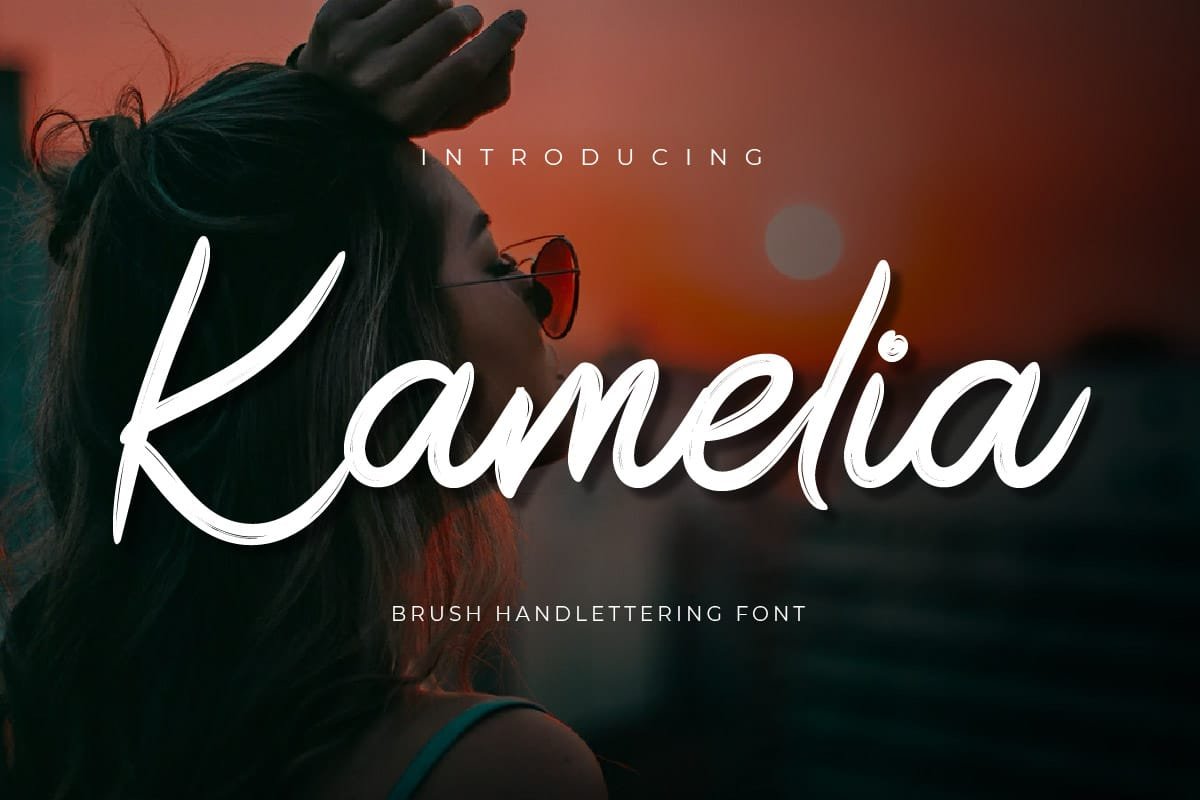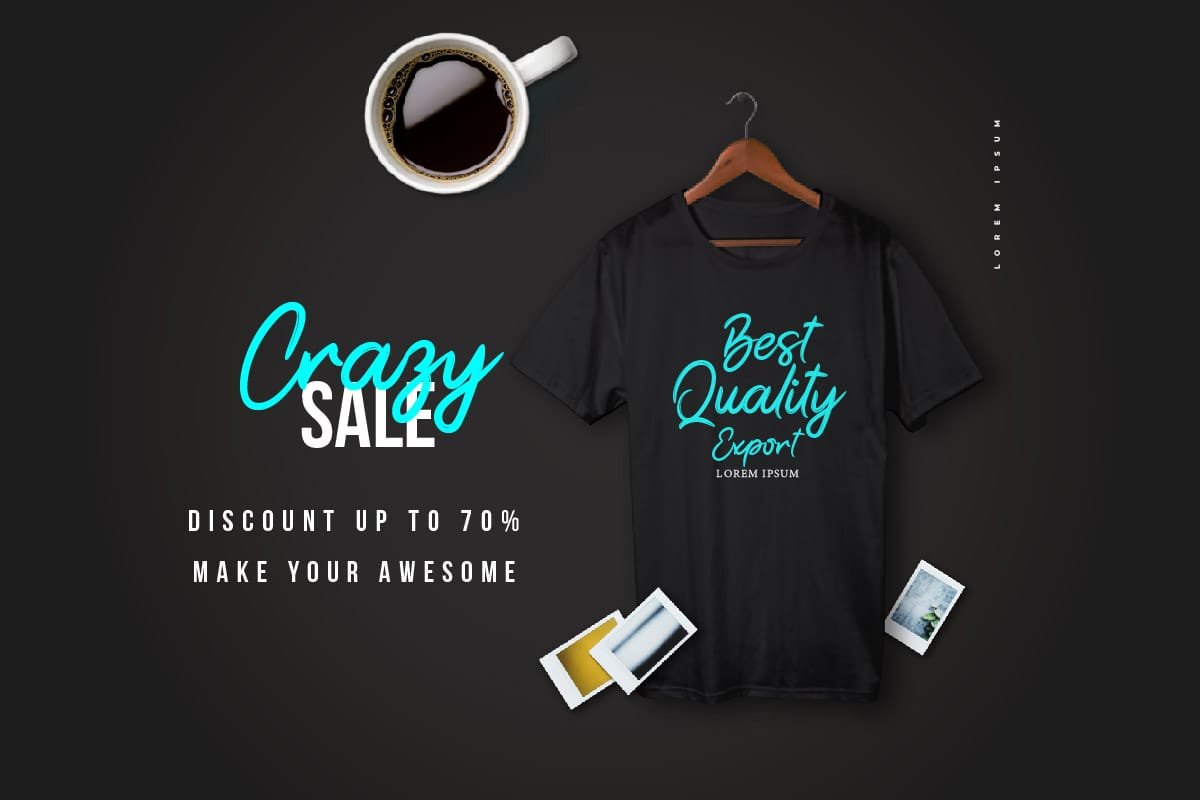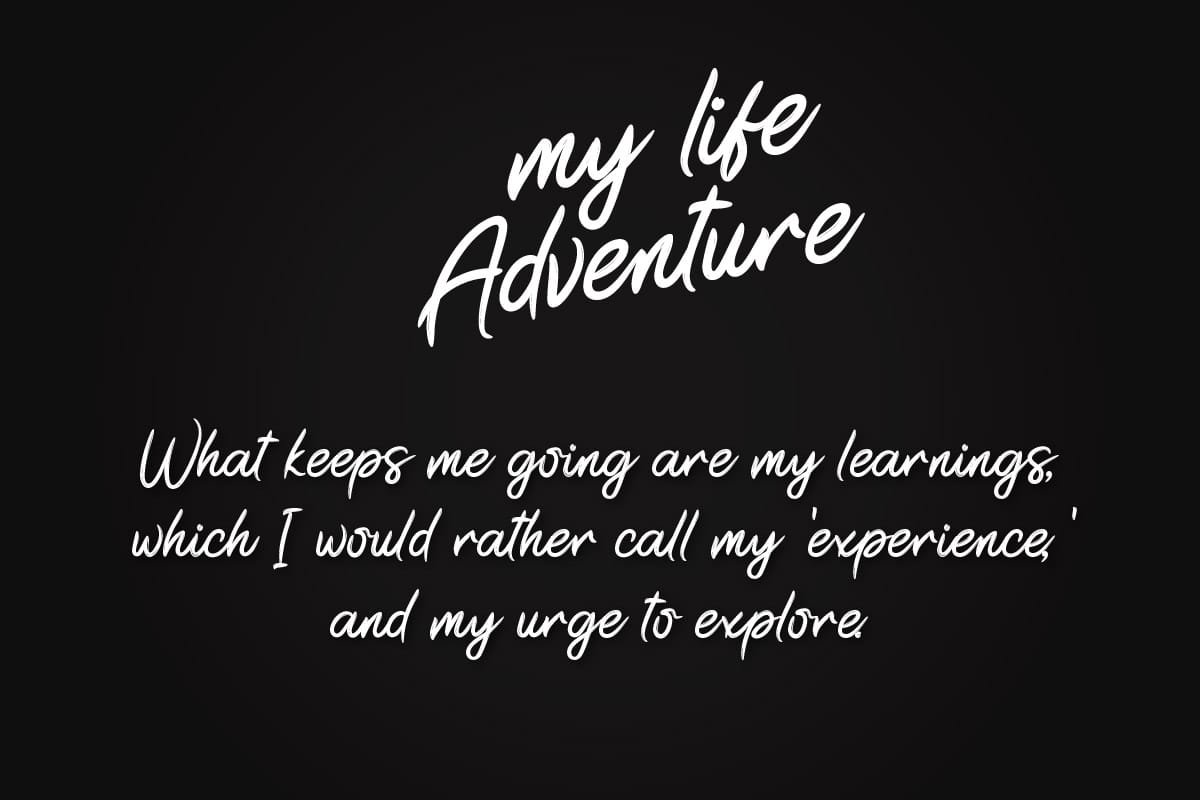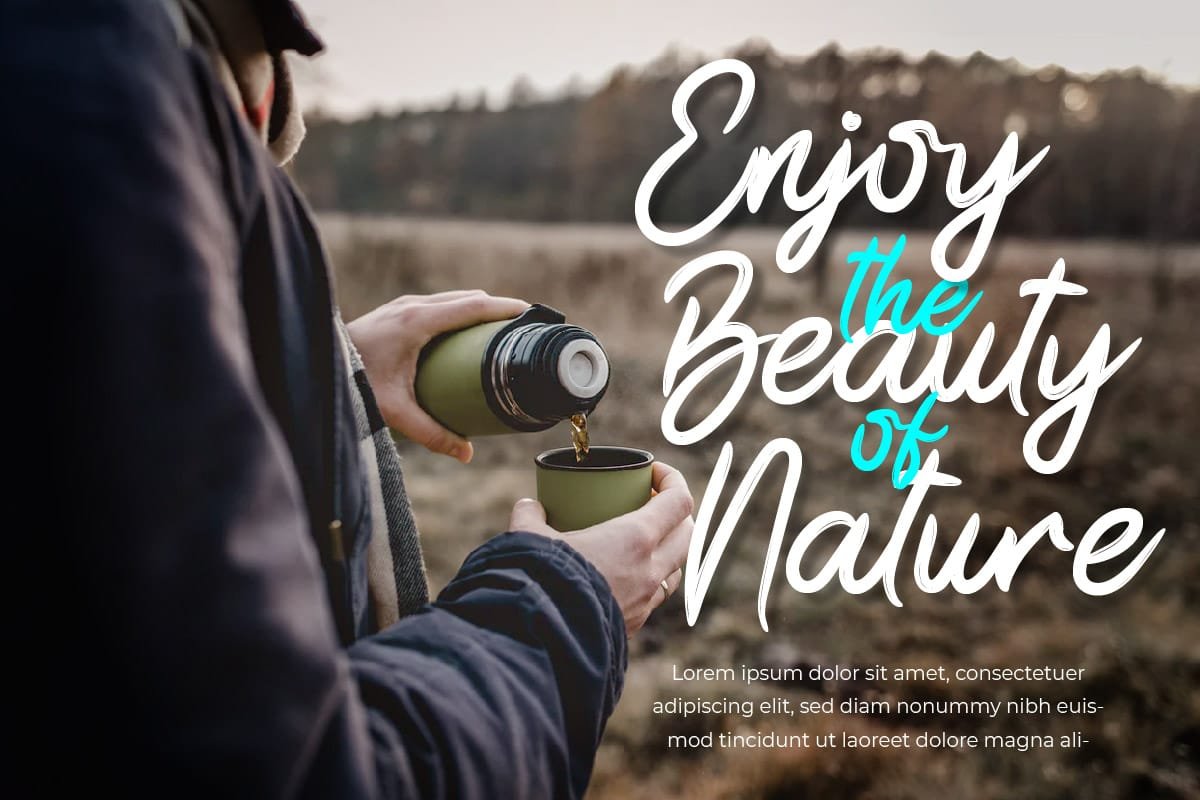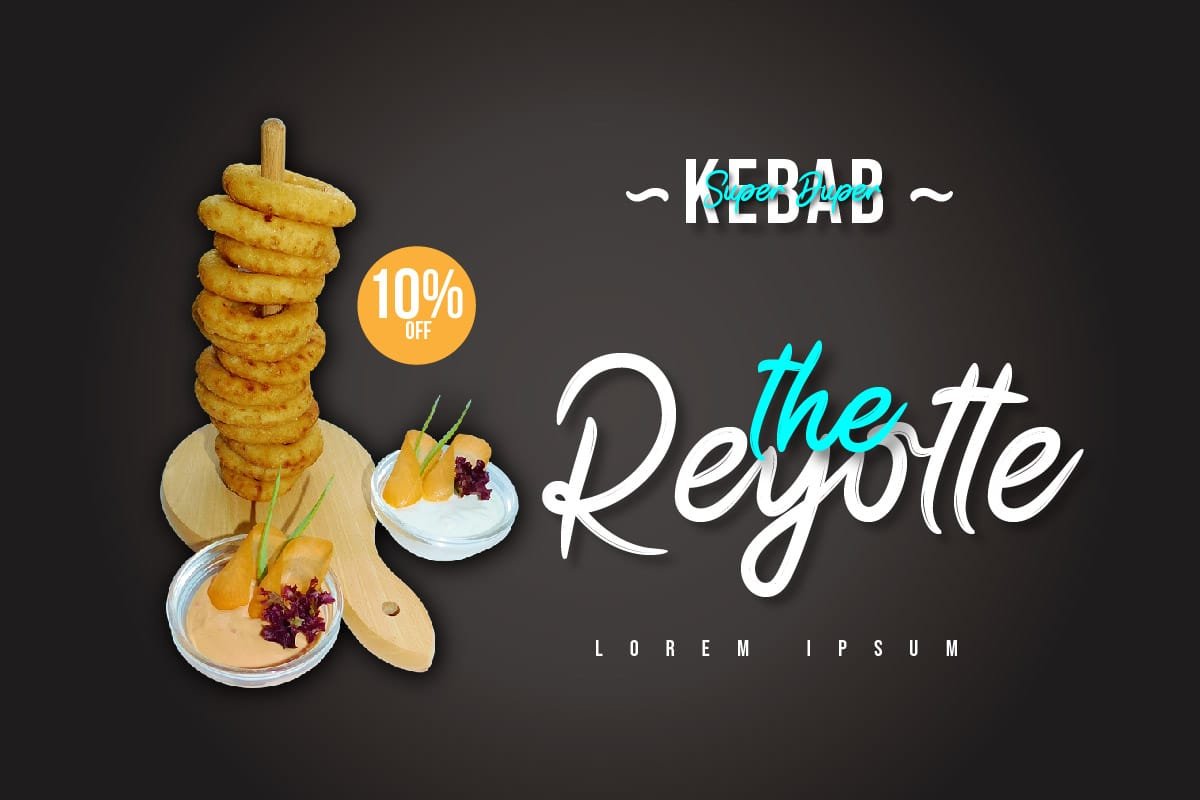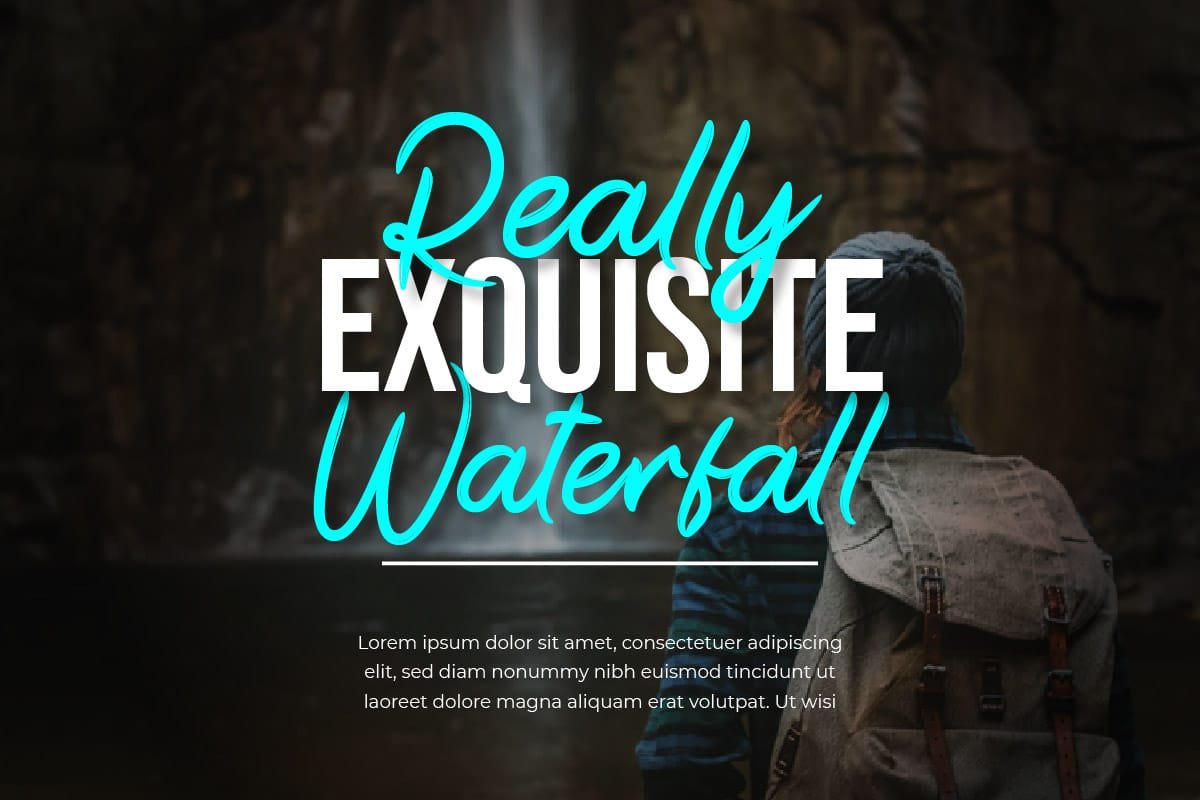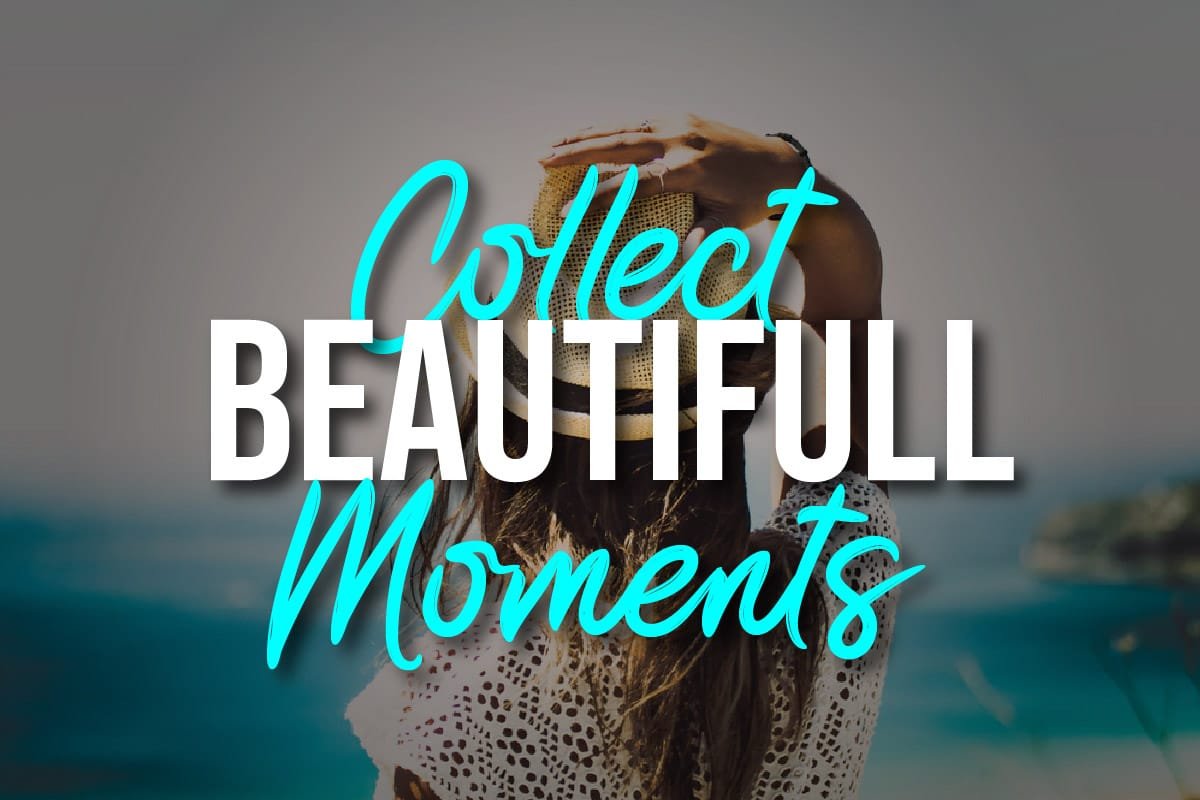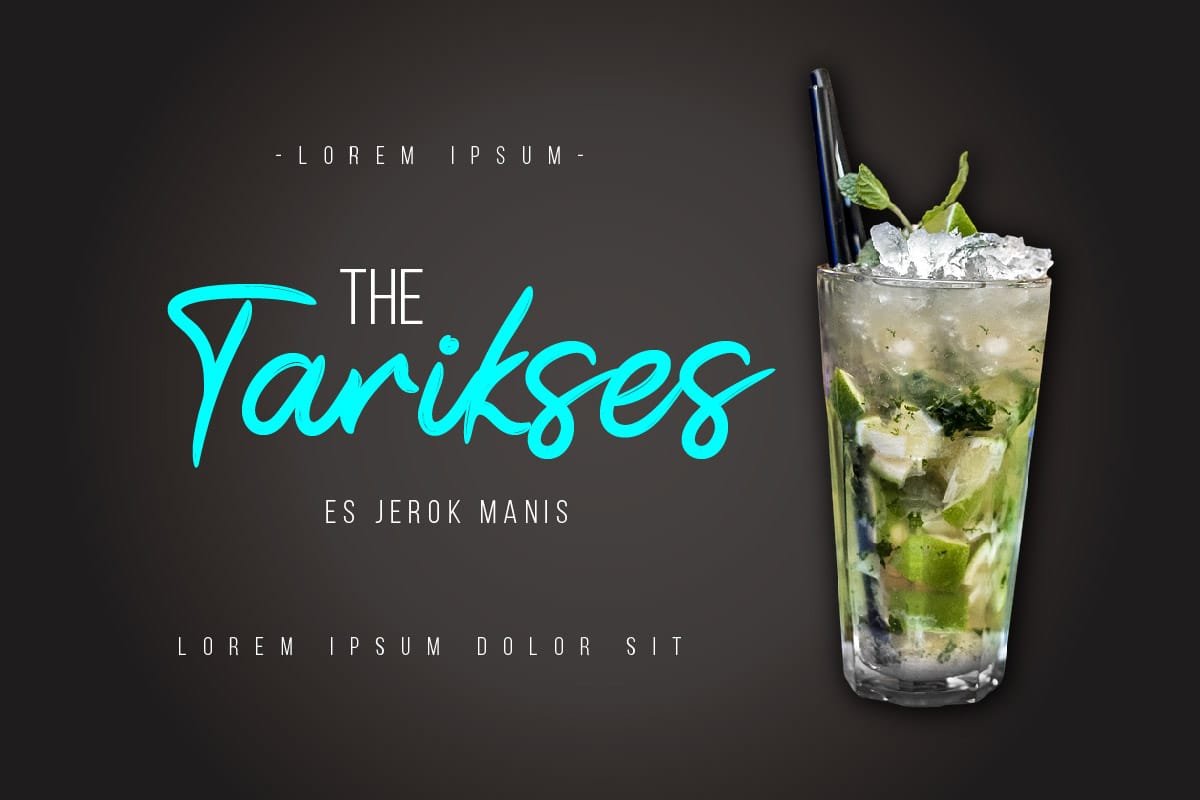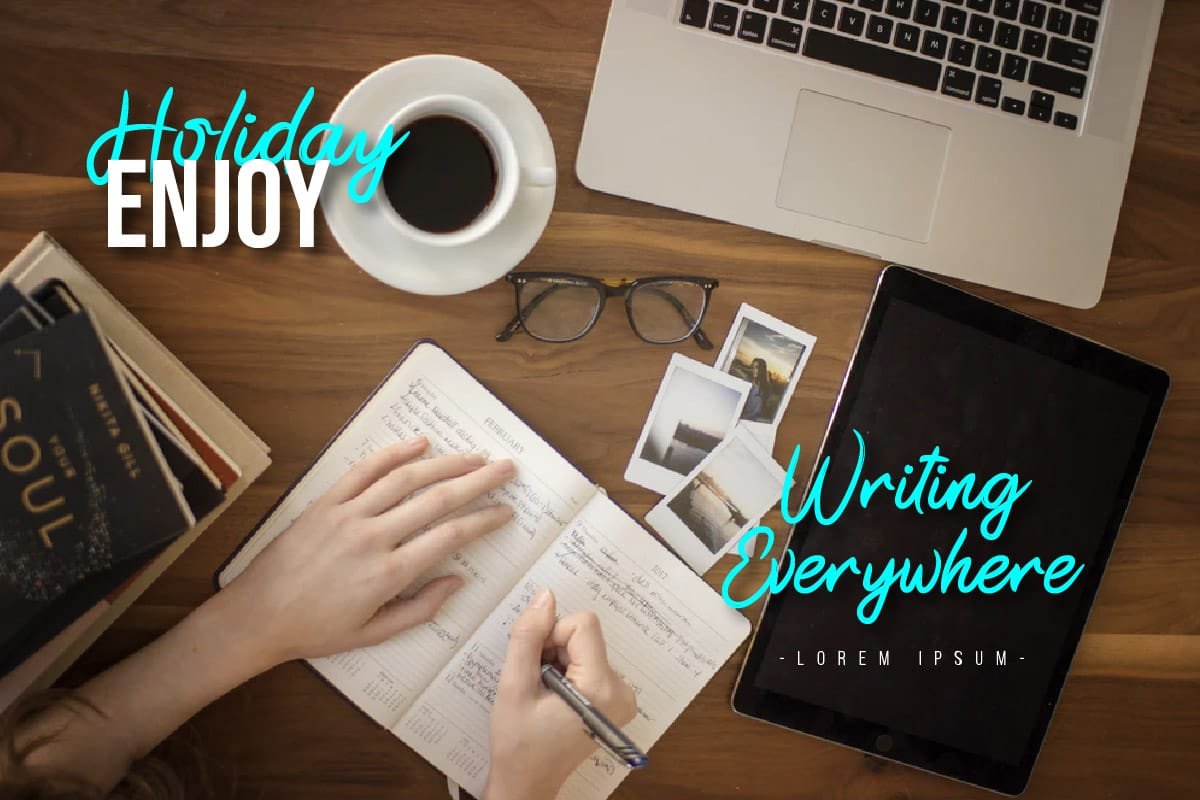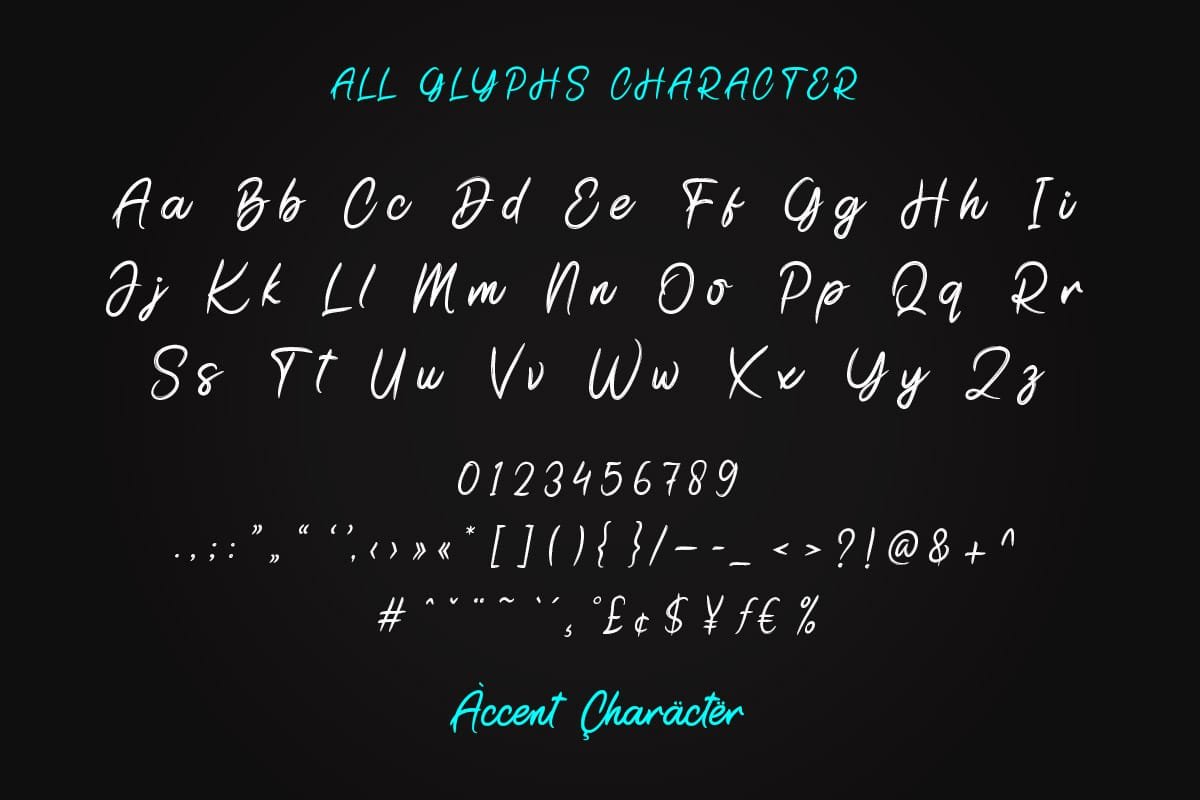
Kamelia – Brush Handwritten Font invites you to immerse yourself in a world of timeless elegance and grace. With its delicate strokes and fluid curves, Kamelia exudes sophistication and charm, making it the perfect choice for projects that demand a touch of refinement. Whether you’re designing luxurious wedding invitations, crafting romantic poetry, or creating delicate branding for high-end products, Kamelia adds a sense of beauty and grace to every design. Get ready to captivate your audience and elevate your creations with Kamelia – the font that’s as enchanting as a blooming flower.